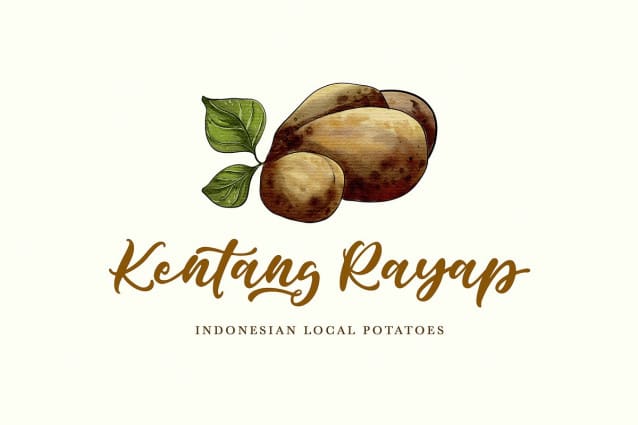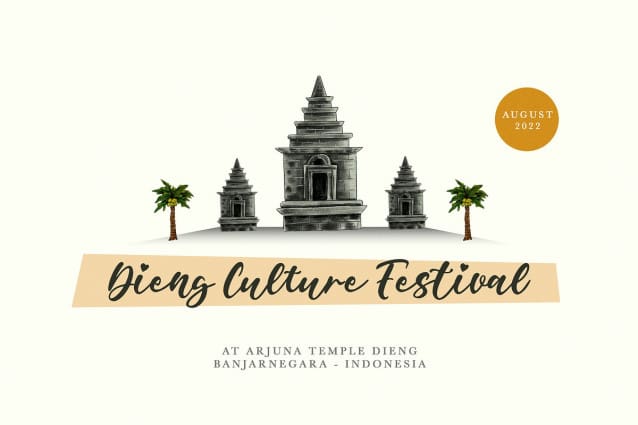
De Hyang Script Font
De Hyang Script Font is a hand lettering script font. Perfect for adding a unique impression that looks natural like manual handwriting when opentype is active. This font is great for your next creative project such as Logotype, printed quotes, invitations, cards, product packaging, headers, letterhead, poster, apparel design, label, book cover and etc